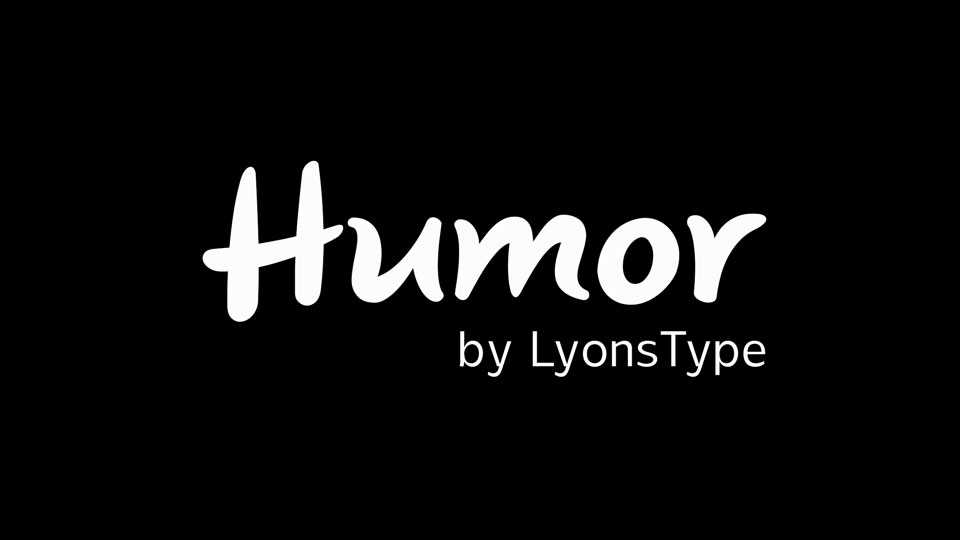
Download Humor font, a casual, natural handwritten typeface that radiates warmth and friendliness with its smooth, relaxed strokes and subtle variations.